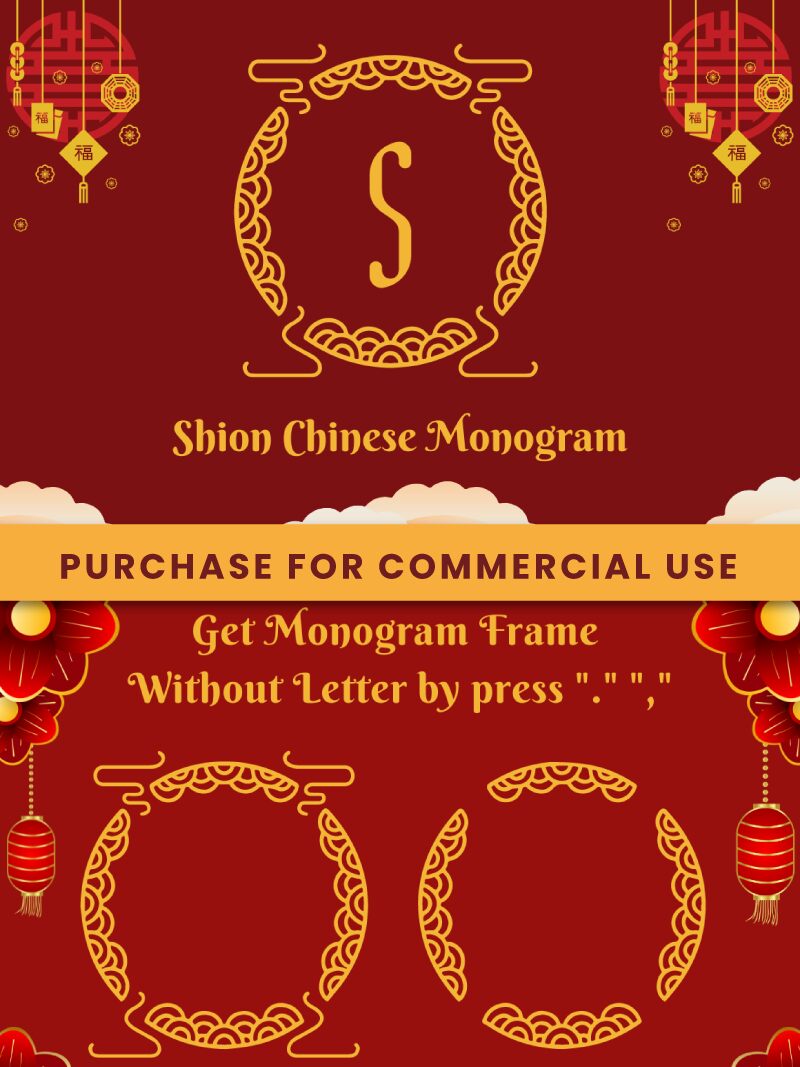
Shion Chinese Monogram, crafted by Attype Studio, stands out as a display font with its decorative flair and extra-condensed width. Its unique style embodies an artistic fusion of traditional calligraphy with modern design principles, resulting in a typeface that boasts elegance and character. The crisp, intricate strokes offer an aesthetic appeal that catches the eye, making it ideal for branding, logo design, and eye-catching headlines.
This font's distinctive personality makes it particularly suitable for projects aiming to convey cultural richness or a sense of heritage while maintaining a contemporary feel. Shion Chinese Monogram is more than just typography-it's a statement piece that can elevate your creative work to new heights of sophistication.